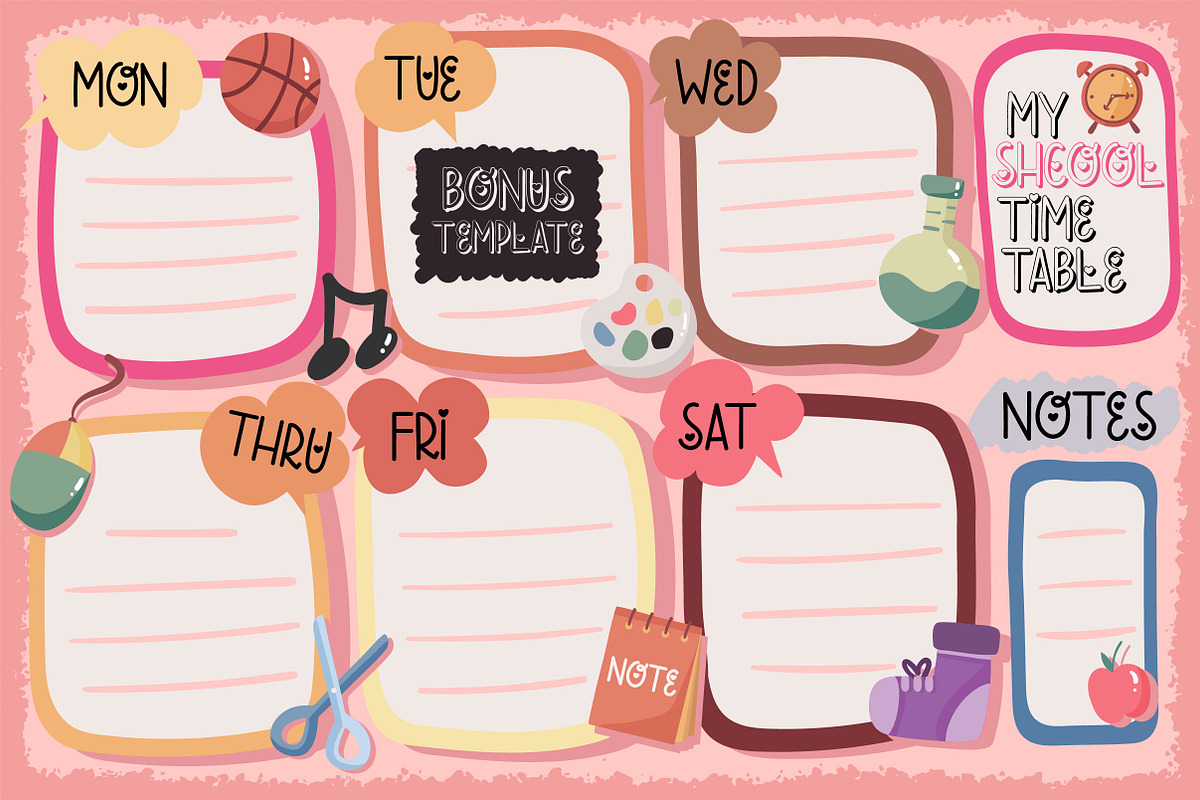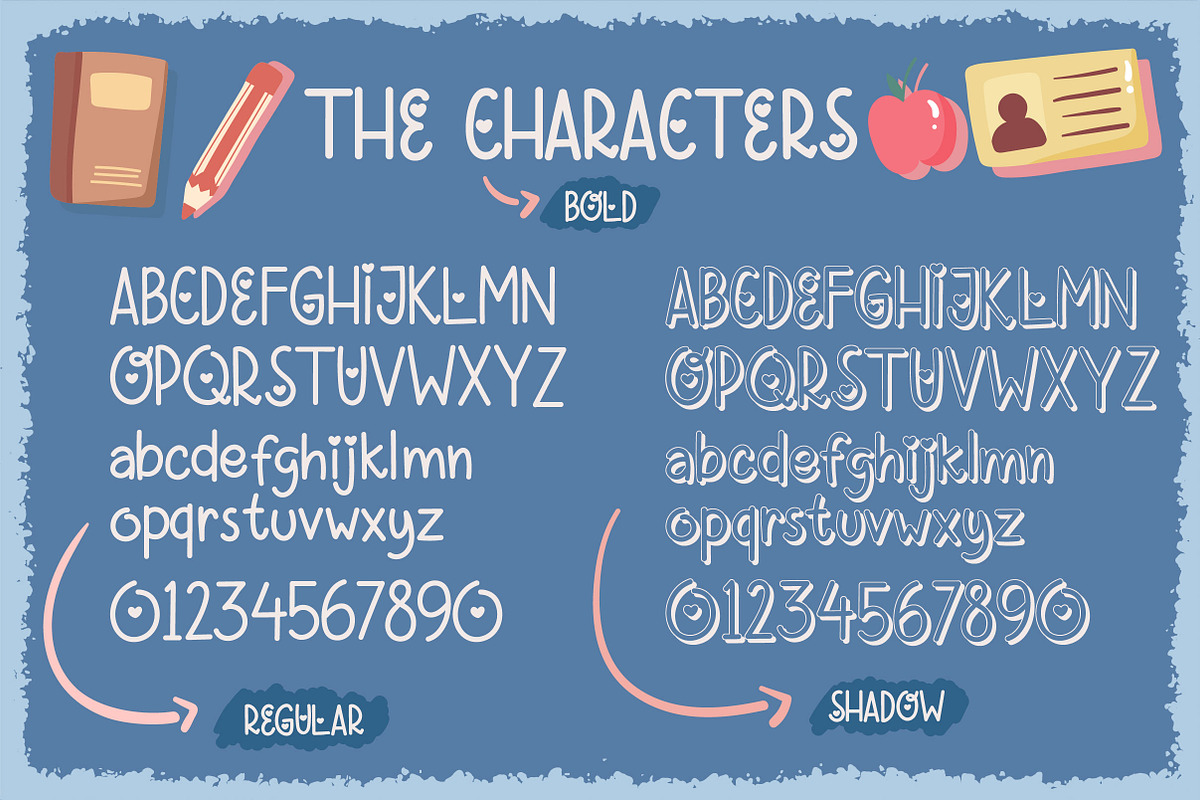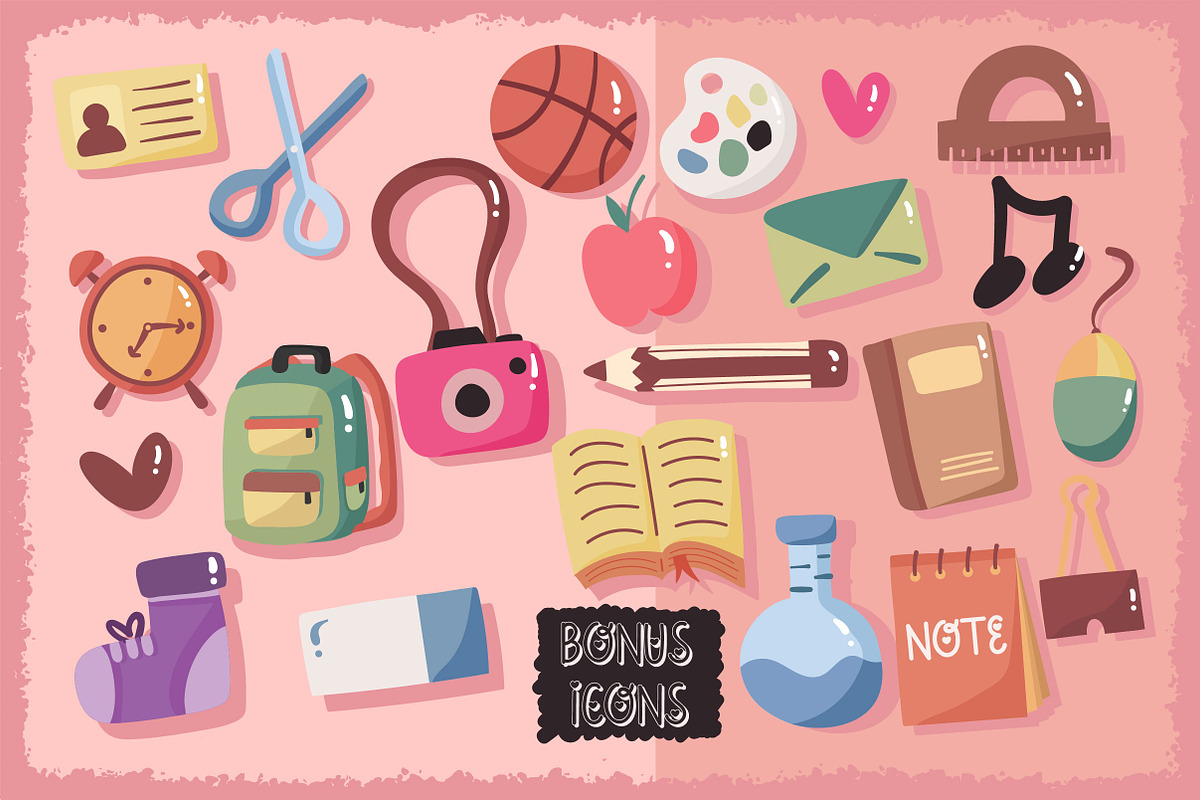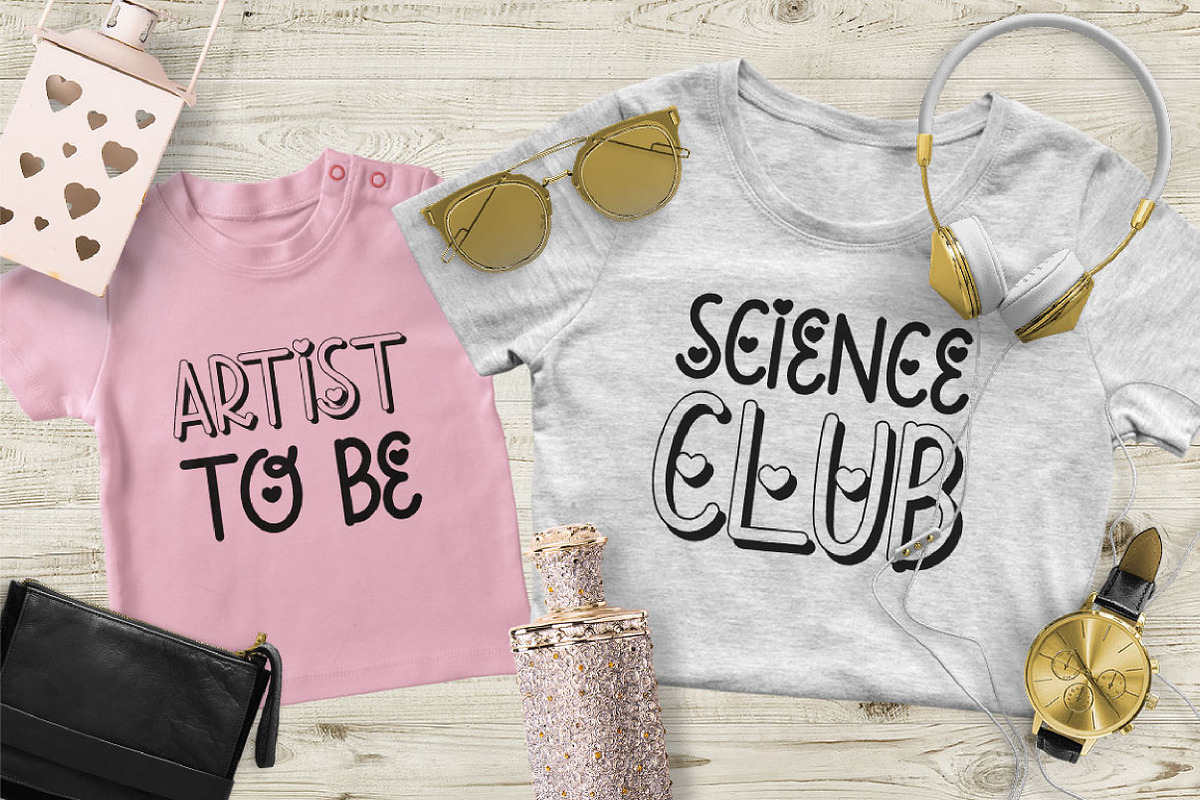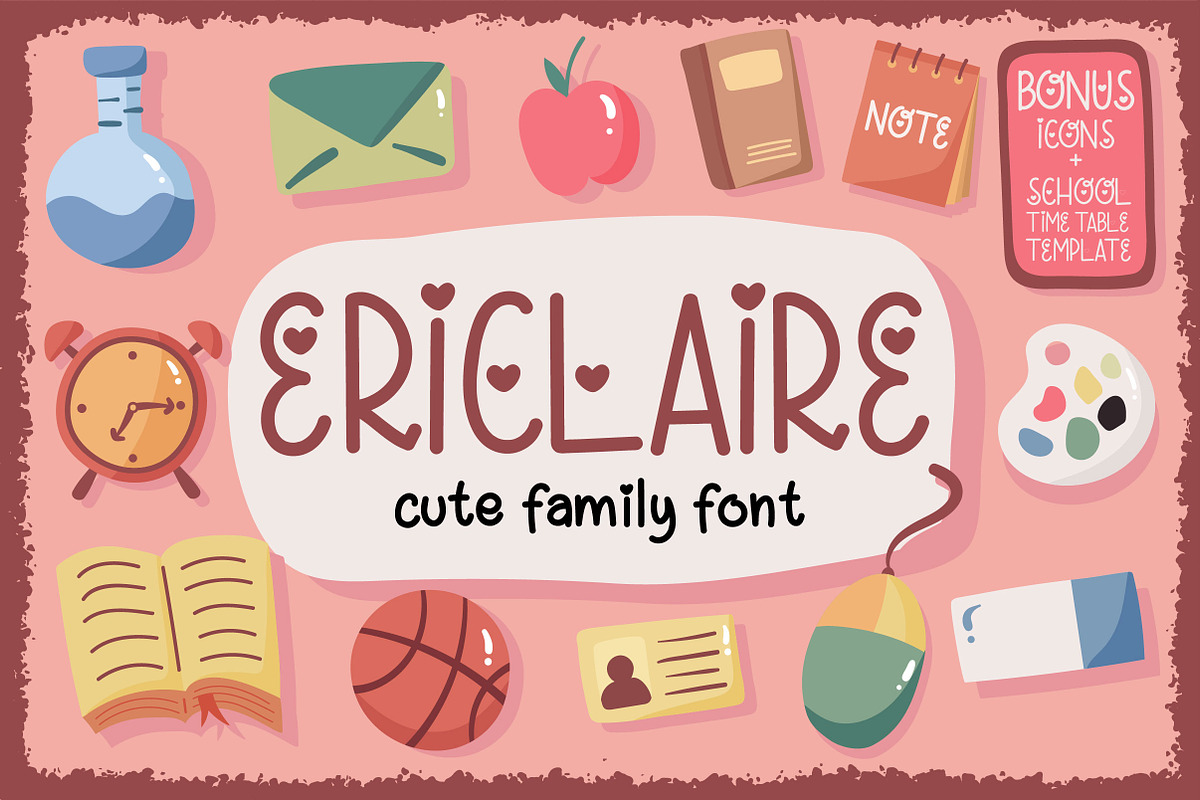
Ericlaire Font
Hello there! Meet Ericlaire, a cute typeface with 3 different syle : regular, bold and shadow. It is also comes with icons and time table template as bonus. It will be perfect for school theme related design for kids, teenager and etc.
Why Ericlaire Font is worth a look
Ericlaire Font by caocastudio fits naturally into Branding, posters, packaging, typography.